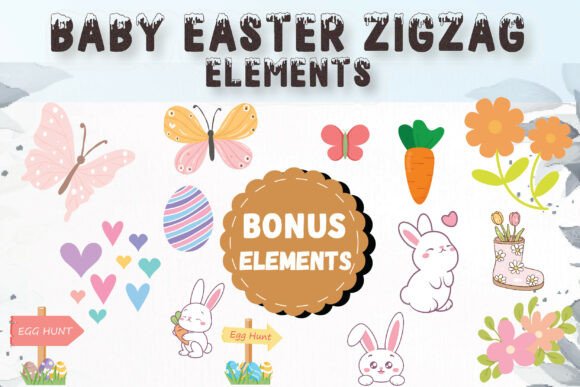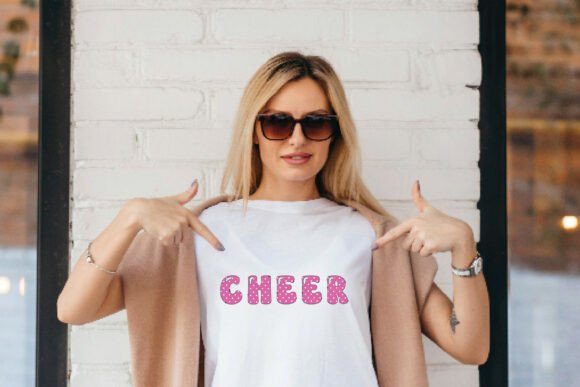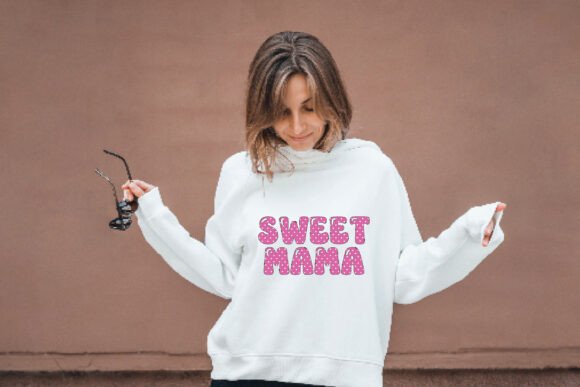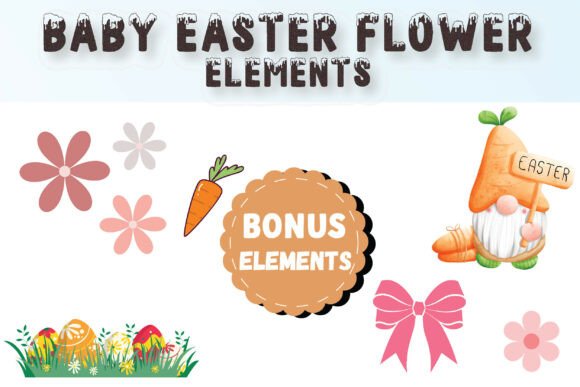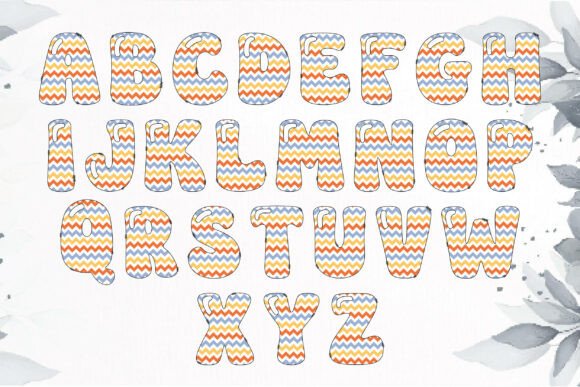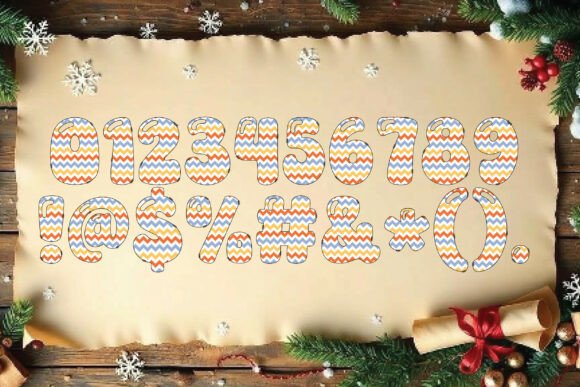
Spring into Easter Fun with the Baby Easter Bundle Font
As a designer, there’s nothing quite like the thrill of brainstorming ideas for a new project. Perhaps you’re tasked with creating Easter-themed designs for a nursery or kids’ party, or maybe you’re looking for a way to add some springtime flair to your print-on-demand products. Whatever the case, I’m sure you’ve found yourself stuck in a creative rut, searching for the perfect font to bring your vision to life.
Enter the Baby Easter Bundle Font, a delightful collection of four playful styles that are sure to make your designs hop with joy. This adorable bundle features Baby Easter Dot, Baby Easter Box, Baby Easter Line, and Baby Easter Zigzag – each one bursting with cute spring-inspired details that are perfect for Easter crafts, baby and kids’ themed projects, and so much more.
With the Baby Easter Bundle Font, you’ll have everything you need to create cheerful and festive Easter designs that are sure to impress. Whether you’re a seasoned designer or just starting out, this valuable resource is a must-have for anyone looking to add a touch of Easter magic to their work.
Baby Easter Bundle Font Key Features
- Font Family: A collection of 12 unique Easter-themed fonts, ideal for creating engaging and playful designs.
- Size: The font bundle includes fonts in 4 different sizes, ranging from 48pt to 144pt, allowing for flexibility in design applications.
- Resolution: Each font is designed to be scalable, with high-resolution images (300 DPI) for optimal printing and digital display.
- Unique Characteristics: The fonts feature intricate Easter egg designs, colorful illustrations, and whimsical typography, perfect for adding a touch of festivity to your projects.
Designer Review: Baby Easter Bundle Font
First of all, I love the whimsical feel of this font. The ✨ Easter-themed characters and decorations add a delightful touch to any design project. The font itself is clean and easy to read, making it perfect for titles, headings, and even body text.
- ✨ Easter-themed characters and decorations are adorable and add a unique touch.
- ✨ Font is clean and easy to read, making it versatile for various design projects.
- ✨ Includes a wide range of characters, including uppercase and lowercase letters, numbers, and punctuation.
However, I do have a few concerns about this font. The ⚠️ limited character set may not be ideal for projects that require a lot of customization or flexibility.
- ⚠️ Limited character set may not be suitable for complex design projects.
- ⚠️ Some characters may not be fully compatible with all operating systems or devices.
Overall, I think the Baby Easter Bundle Font is a great choice for design projects that require a fun and playful touch. While it has some limitations, its unique features and ease of use make it a great addition to any designer’s toolkit.
The Baby Easter Bundle Font is perfect for creating Easter-themed designs, including:
- Easter card invitations
- Baby shower invitations
- Easter-themed social media graphics
- Easter-themed printables